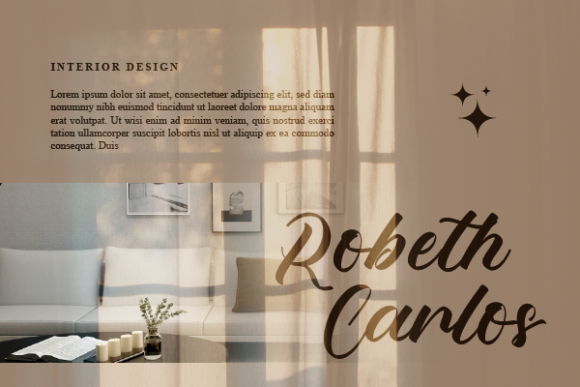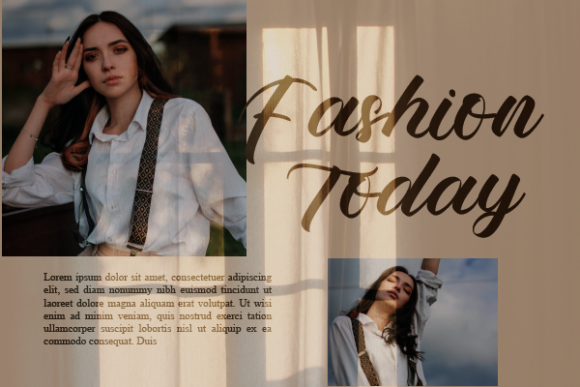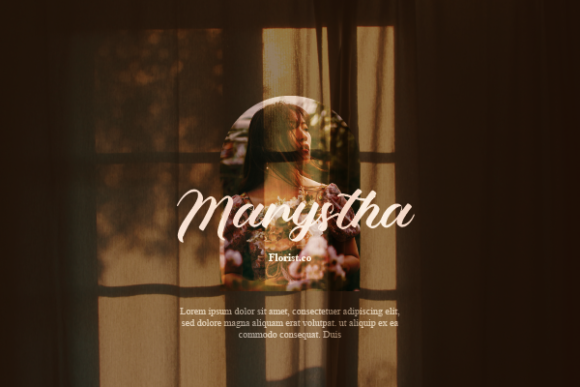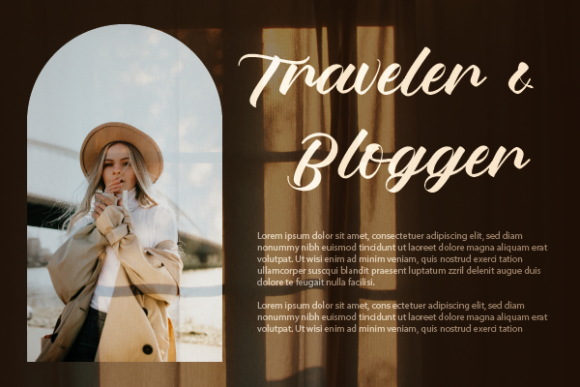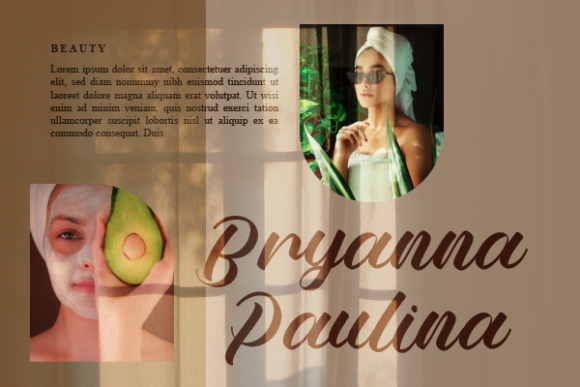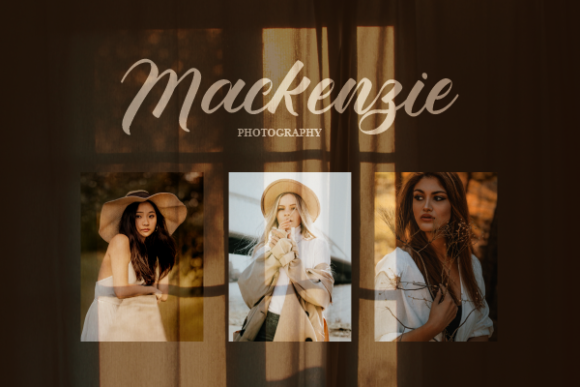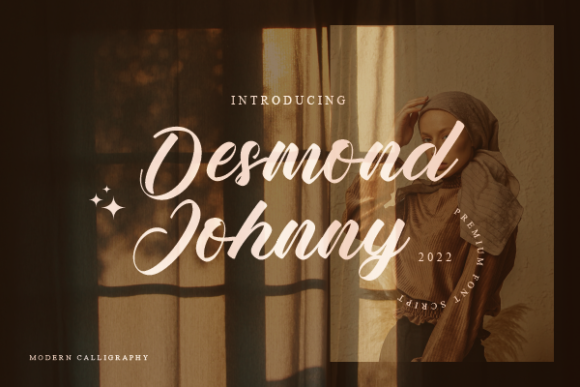
Discover the Charm of Desmond Johnny Font: A Lovely Handwritten Script
Are you a designer or crafter looking for a unique and elegant font to elevate your creative projects? Look no further than Desmond Johnny Font, a beautiful paint-brushed handwritten script that is sure to capture your heart. With its well-balanced characters and versatile design, Desmond Johnny is the perfect addition to any design or crafting project.
The Beauty of Desmond Johnny Font
Desmond Johnny Font is a lovely, paint-brushed handwritten font that boasts beautiful and well-balanced characters. Each letter is carefully crafted to create a sense of fluidity and movement, making it perfect for a wide range of design applications. Whether you’re creating a logo, invitation, or social media graphic, Desmond Johnny Font is sure to add a touch of elegance and sophistication.
One of the standout features of Desmond Johnny Font is its versatility. With its classic yet modern design, it can be paired with a wide range of styles and themes, from rustic and vintage to modern and sleek. This makes it an excellent choice for designers and crafters who want to create unique and eye-catching projects that stand out from the crowd.
Key Features of Desmond Johnny Font
- Beautifully crafted characters: Each letter in Desmond Johnny Font is carefully painted and brushed to create a unique and elegant look.
- Well-balanced design: The font’s well-balanced design makes it easy to read and perfect for use in a variety of design applications.
- Versatile: Desmond Johnny Font can be paired with a wide range of styles and themes, making it perfect for designers and crafters who want to create unique projects.
Uses for Desmond Johnny Font
Desmond Johnny Font is a versatile script that can be used in a wide range of design applications, including:
- Logos and branding: Create a unique and memorable logo for your business or brand with Desmond Johnny Font.
- Invitations and stationery: Add a touch of elegance and sophistication to your invitations, cards, and other stationery with Desmond Johnny Font.
- Social media graphics: Create eye-catching social media graphics with Desmond Johnny Font that are sure to grab attention.
- Packaging and labels: Use Desmond Johnny Font to add a personal touch to your packaging and labels.
Tips for Using Desmond Johnny Font
Here are a few tips for getting the most out of Desmond Johnny Font:
- Experiment with different colors: Desmond Johnny Font looks great in a variety of colors, so don’t be afraid to experiment and find the perfect hue for your project.
- Pair with other fonts: Try pairing Desmond Johnny Font with other fonts to create a unique and eye-catching look.
- Use it sparingly: Because Desmond Johnny Font is so elegant and sophisticated, it’s best to use it sparingly to avoid overwhelming your design.